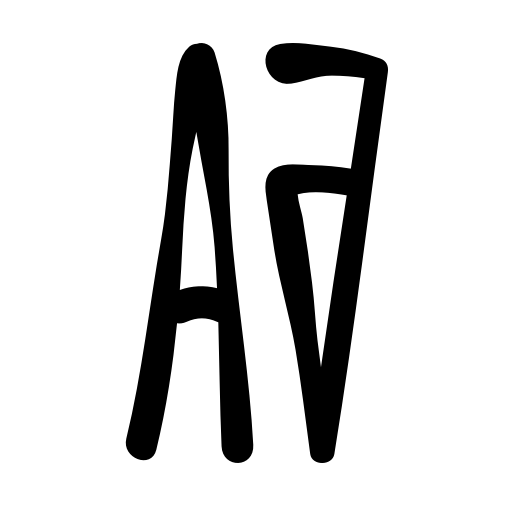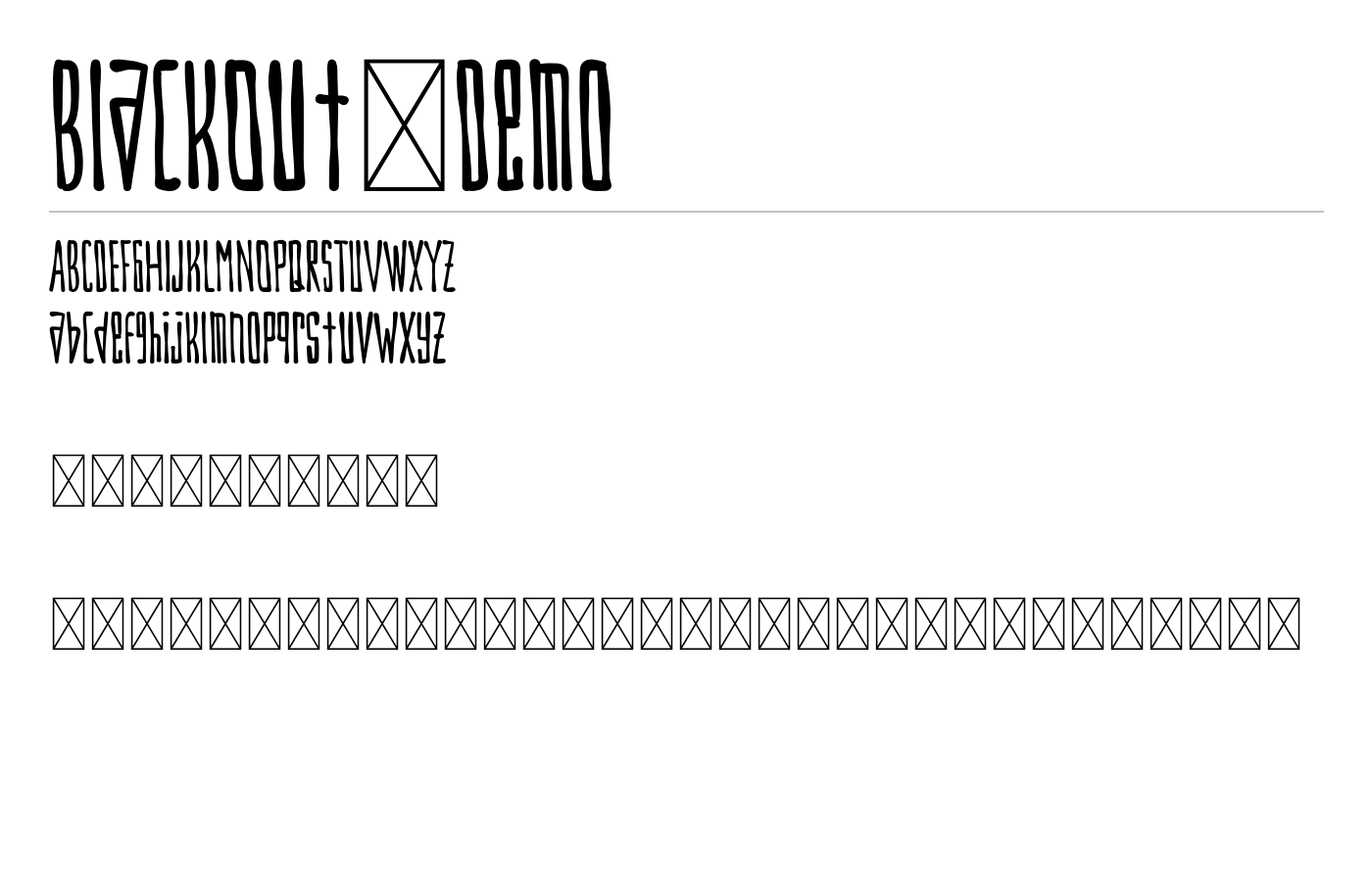
BlackOut-Demo is a narrow, tall sans serif font with a quirky, hand-drawn feel that combines uneven strokes and playful letter shapes to create a casual, artistic vibe. Its condensed width and distinctive uppercase and lowercase characters make it ideal for creative headlines, posters, or branding where a unique and expressive style is desired. This font works best for projects seeking an unconventional, fun look rather than formal or highly legible body text.
BlackOut-Demo Font
About BlackOut-Demo Font
| Font family | BlackOut-Demo Font |
| Designer | Esa Prasetio Nugroho |